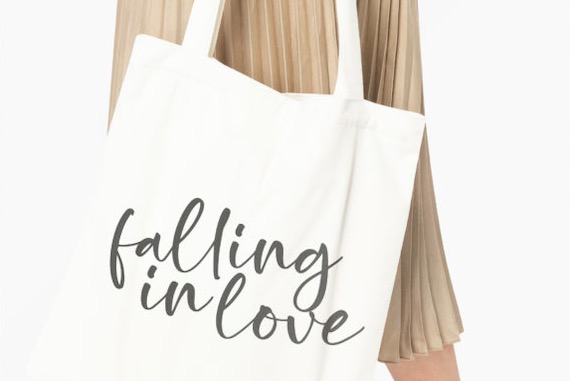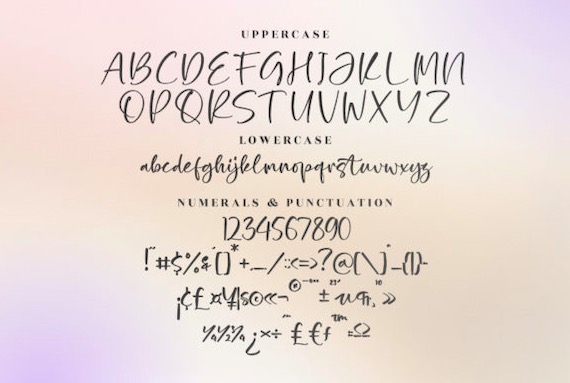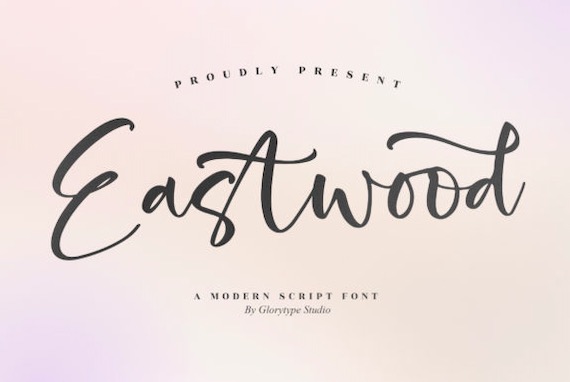
Eastwood is a modern handwritten font script font that was created and shared by Glorytype Studio for a large of your projects like packaging products, invitation cards, flyers, mockups, event posters, and anything else that requires high-quality vibes. It has a beautiful and balanced character, that fits well with the large design pool. This font is PUA encoded which means you can access all of the glyphs and swashes with ease.
Eastwood Handwritten Script Font